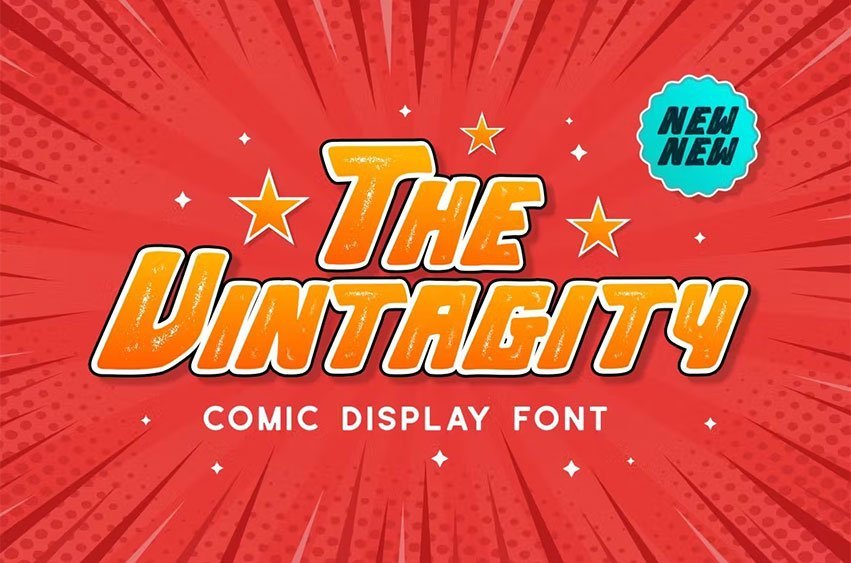
The Vintagity Font is Suitable for logotype, branding, packaging, quotes, poster, shirt, book, invitation and more custom design. The features uppercase, lowercase, numeral, punctuation & symbol, multilingual support.